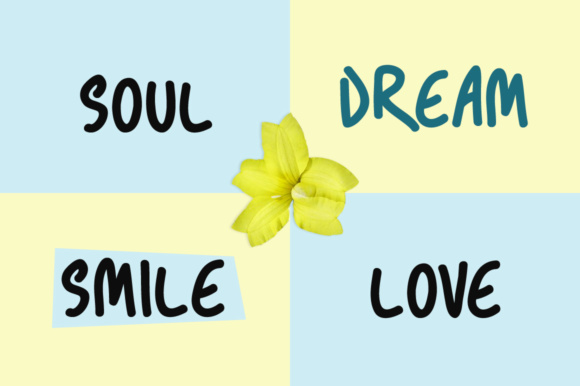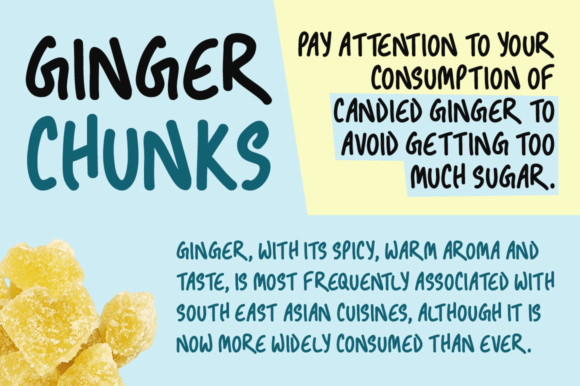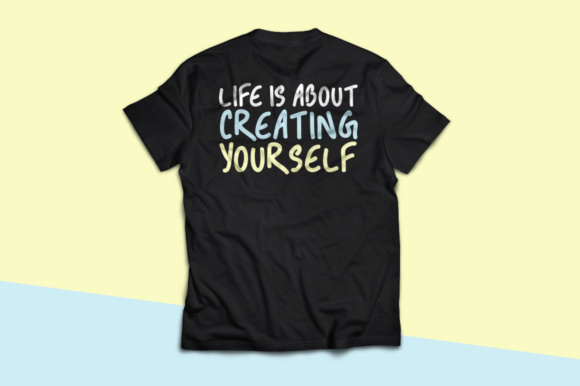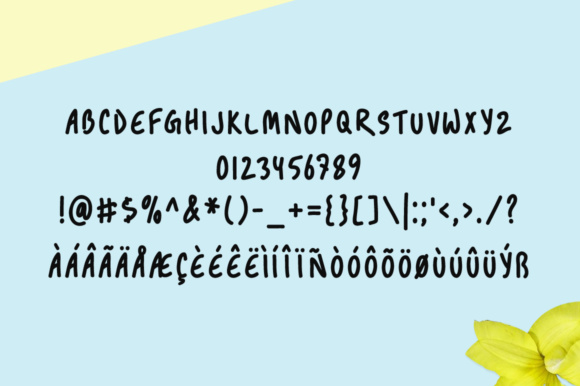
Goodenia Font
About Goodenia Font
Goodenia is a brand new handwritten font. Goodenia is perfectly suited for stationery, logos, t-shirt, paper, print design, website header, photo frame, flyer, music cover, poster, image slider and much more.